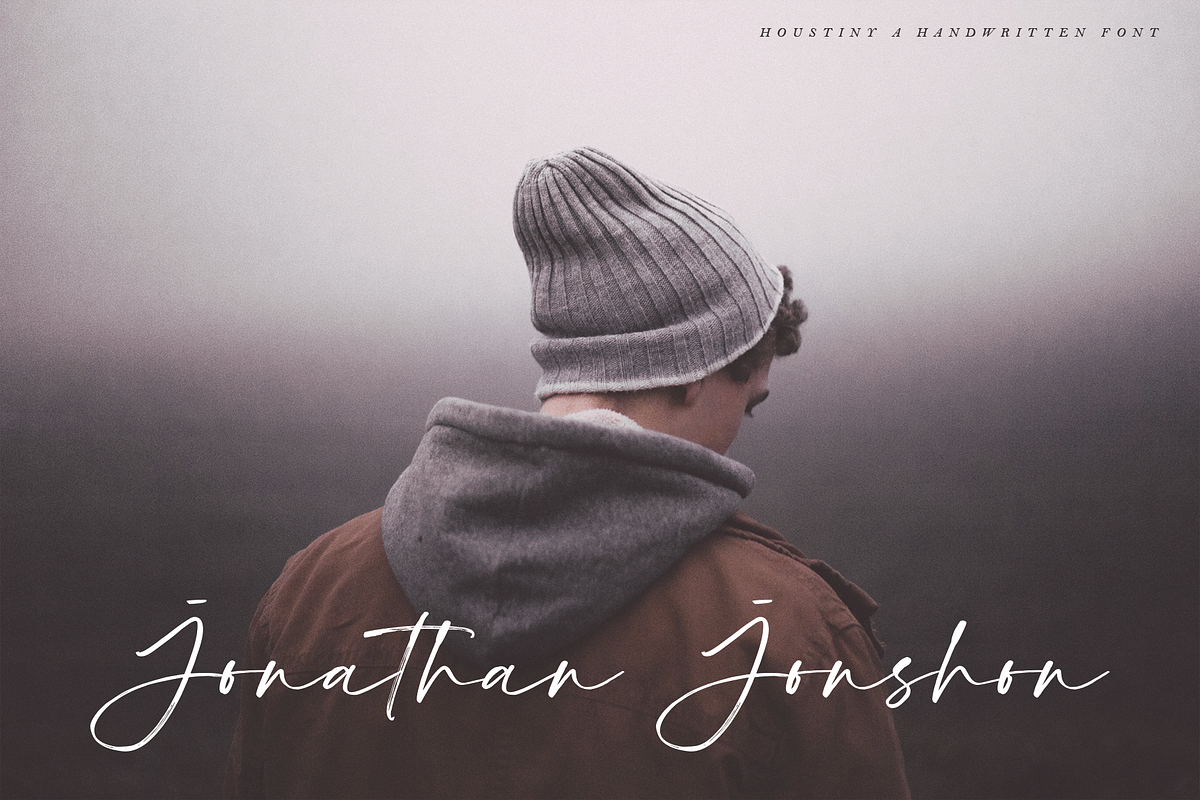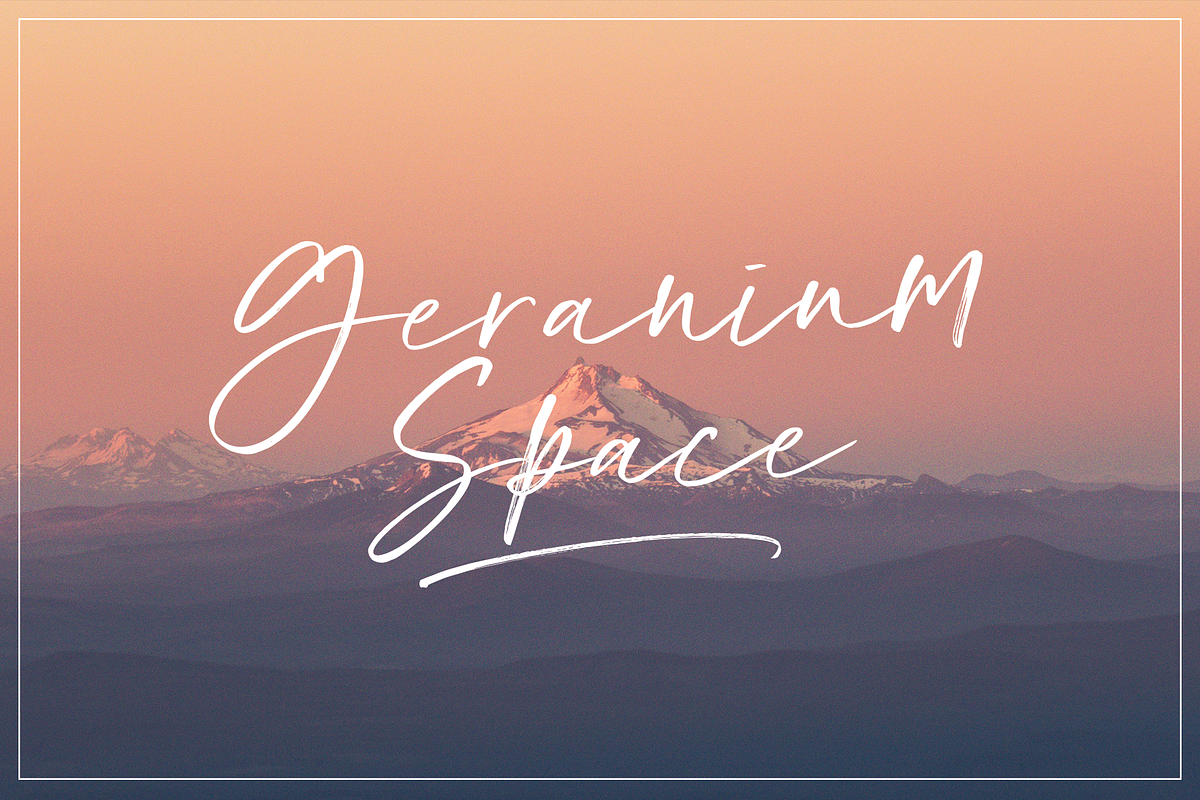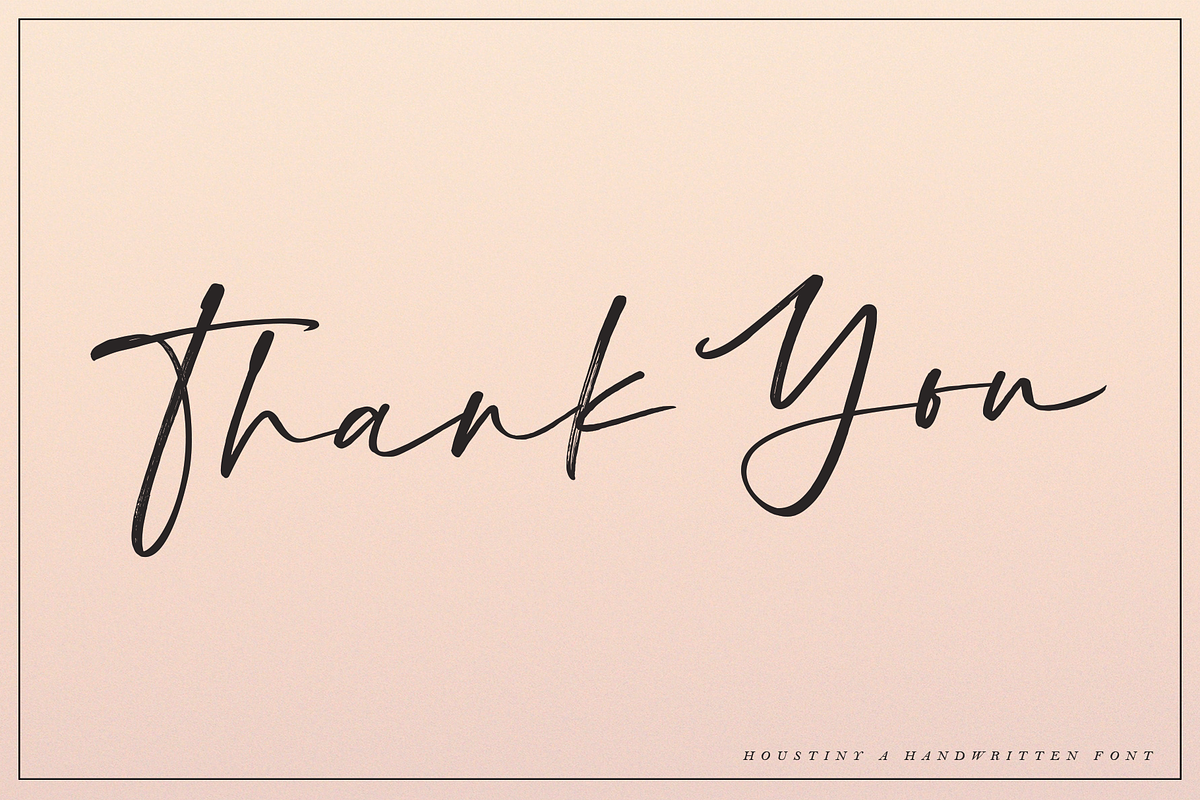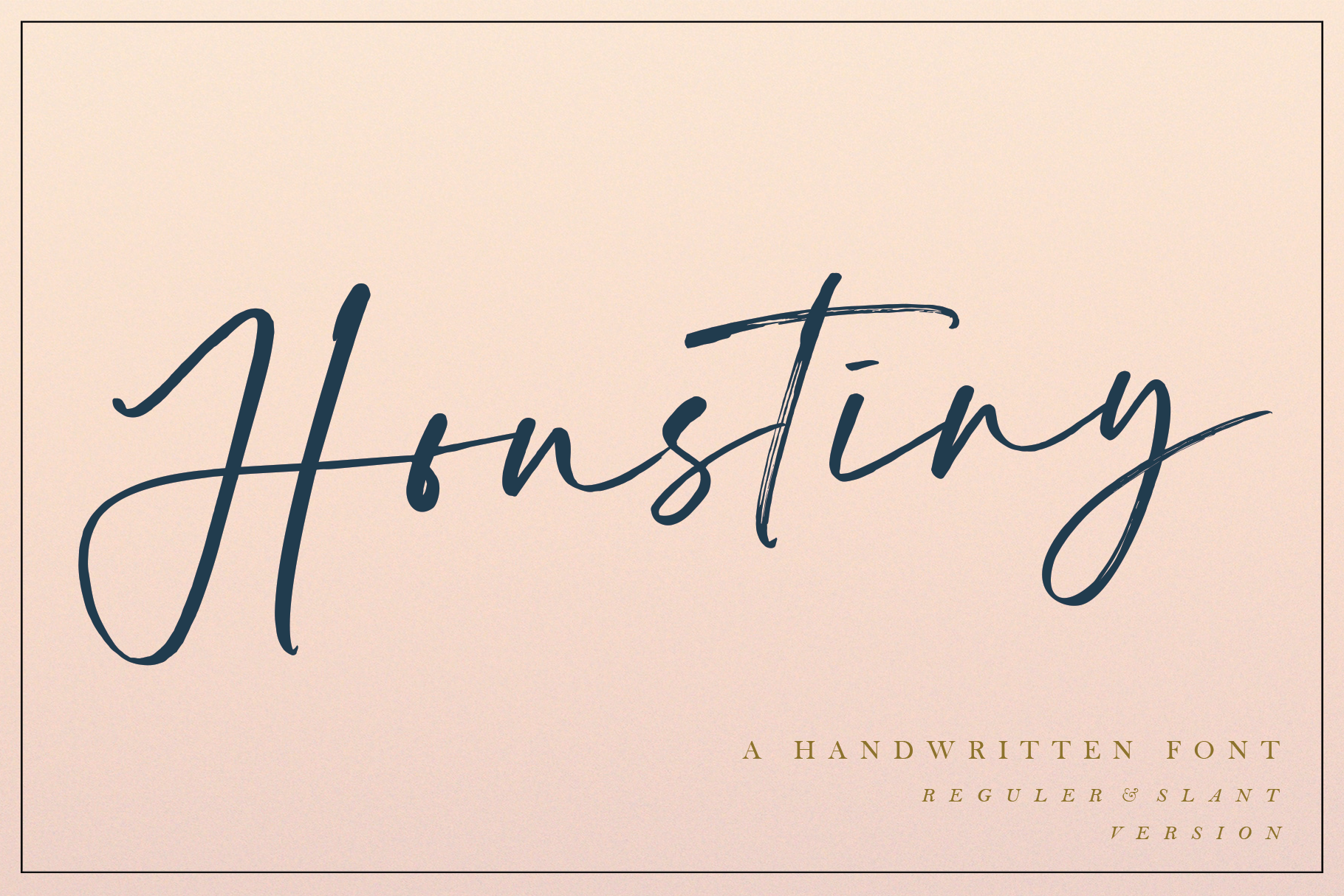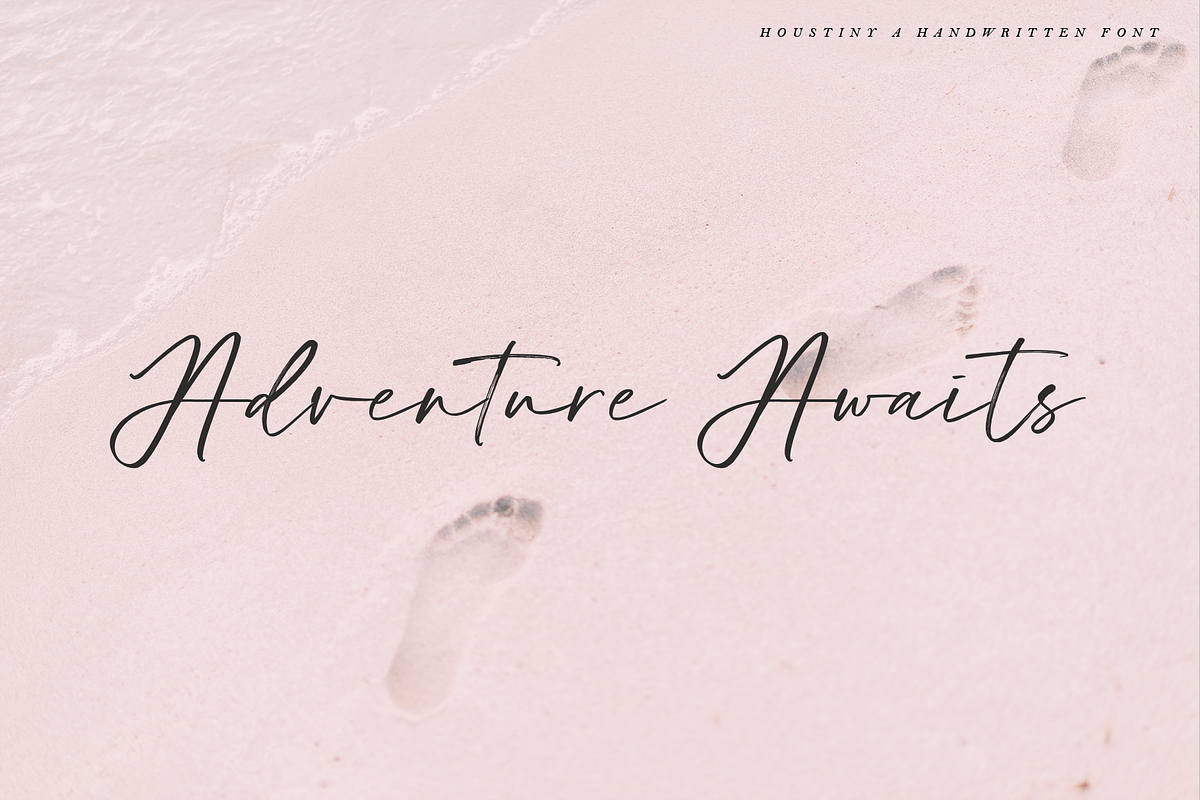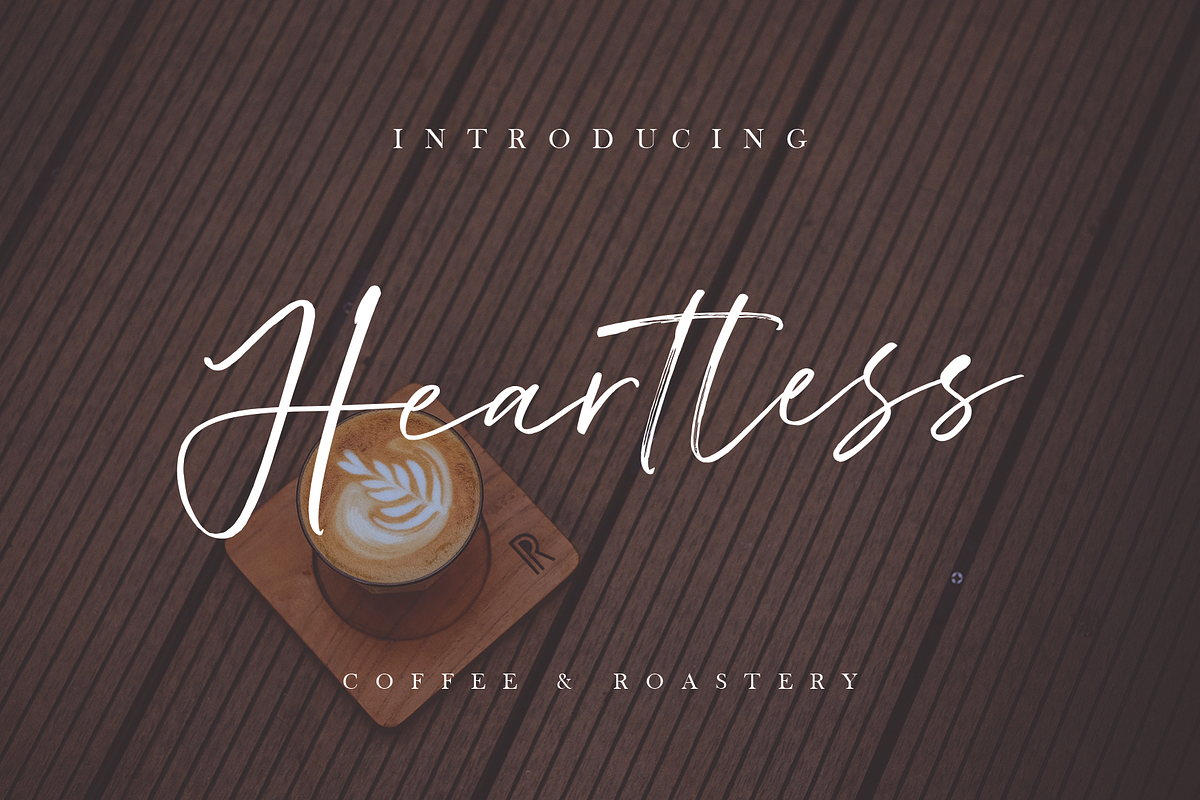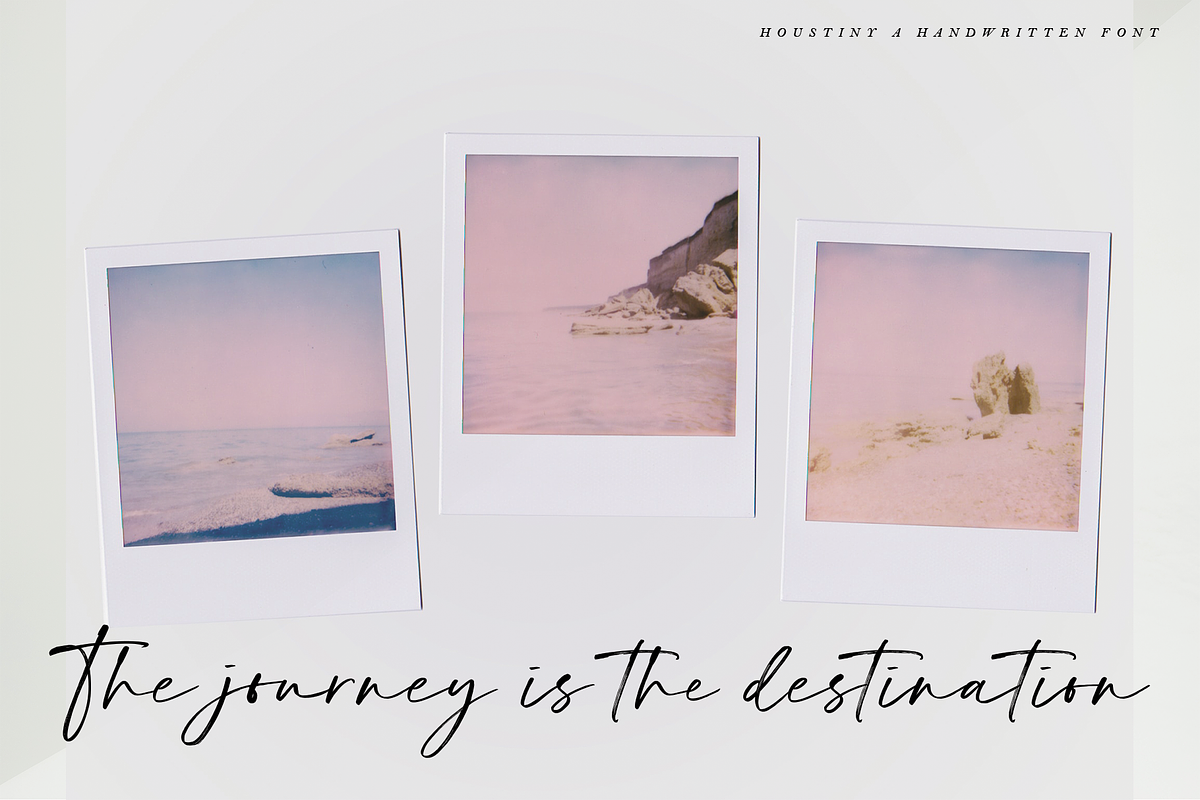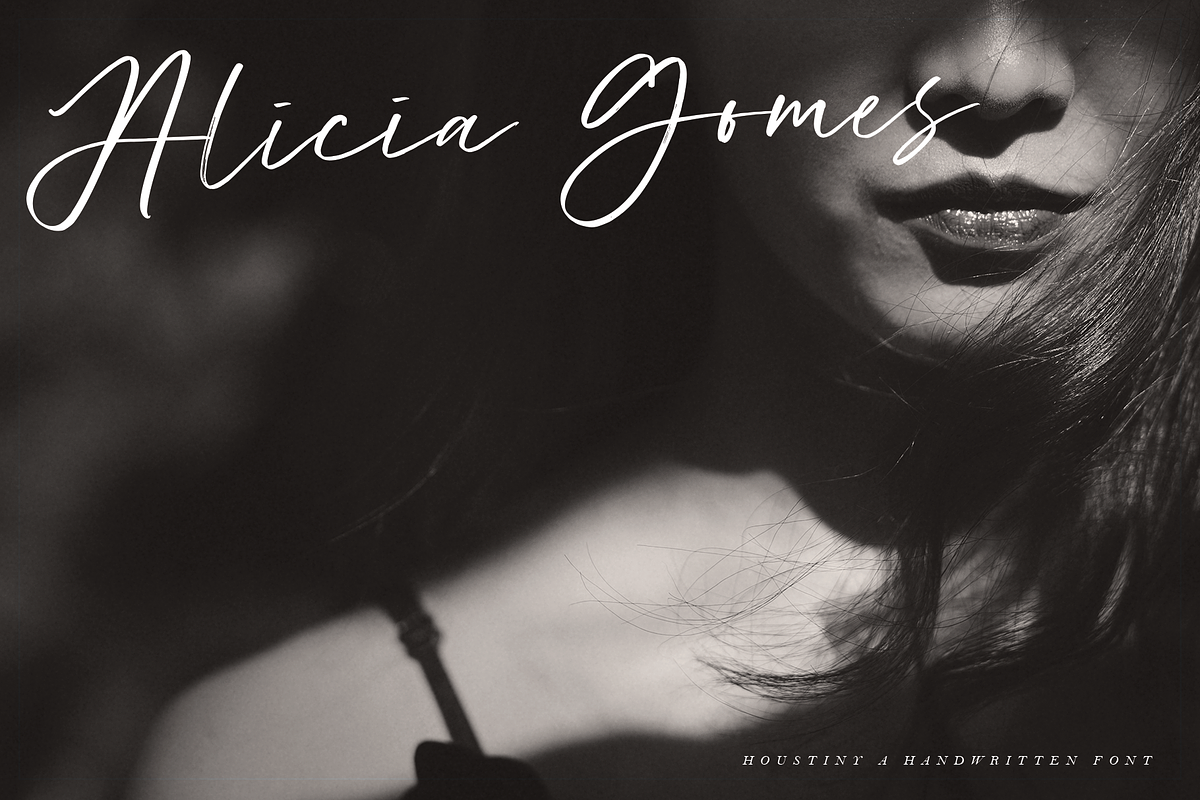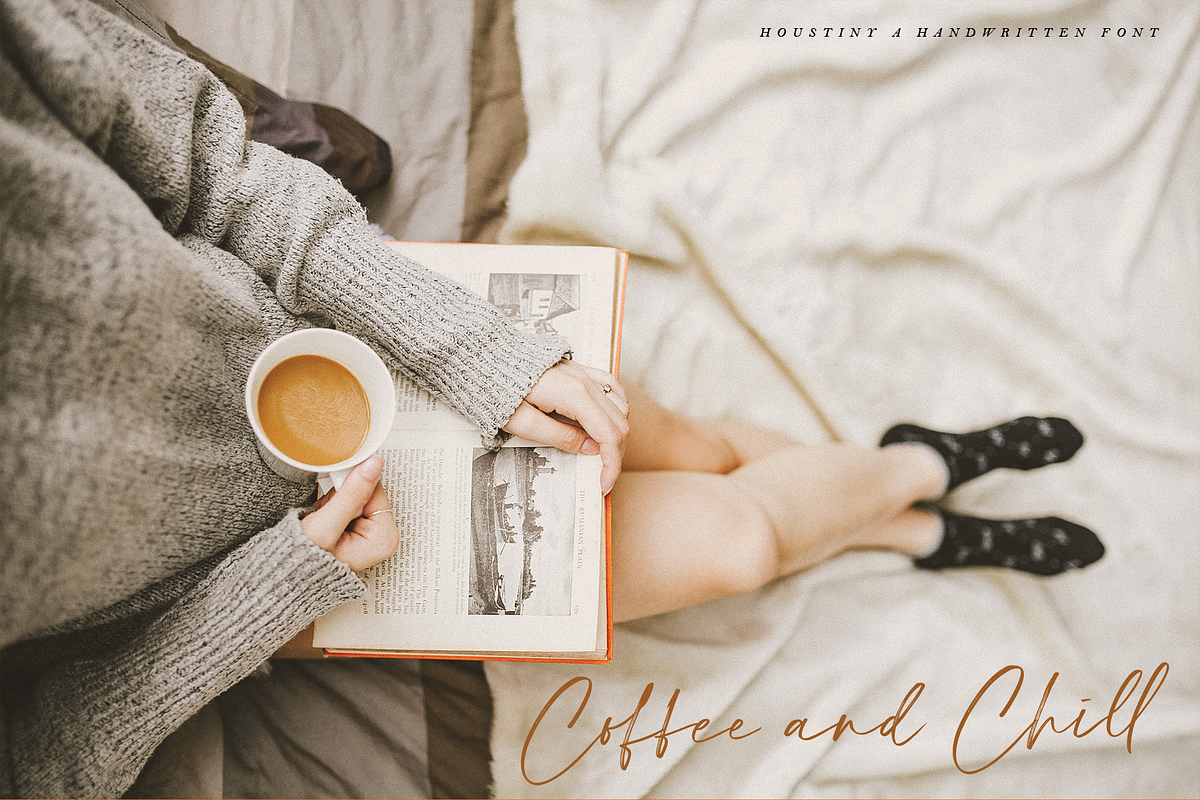
Houstiny - Handwritten Font
Hello everyone, I want to introduce the Houstiny a Handwritten font with a slightly textured character.
Houstiny has a total of 2 uppercase alternatives and 3 lowercase alternatives that you can change as you wish. and a nice additional Slanted font to change your writing style to make it look more slanted and stronger.
Houstiny can also be used for various projects such as stationery invitations, social media, logos, weddings, branding, graphic design with additional extras. and can be combined with various types of serif fonts to perfect the project you want to work on.